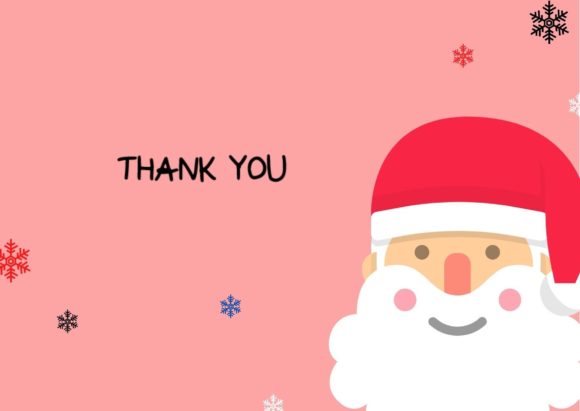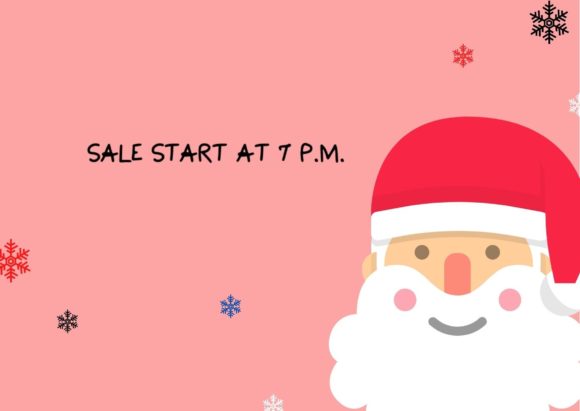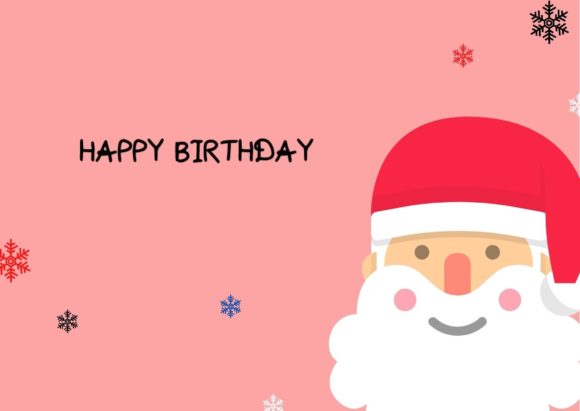
Simple All Caps Font – Free Download
Introduction to Simple All Caps Font
Simple all caps is a cool and minimal display font.
Key Features of Simple All Caps Font